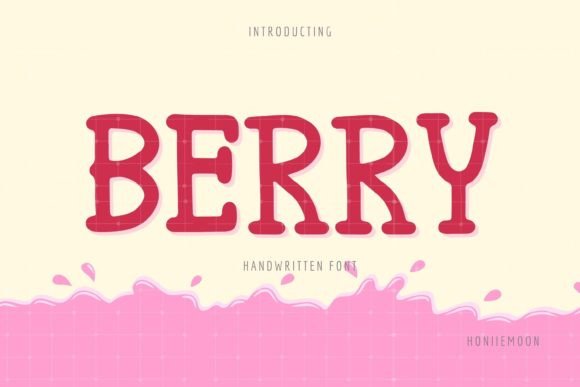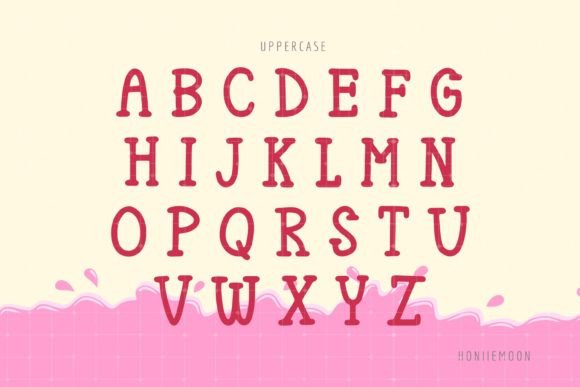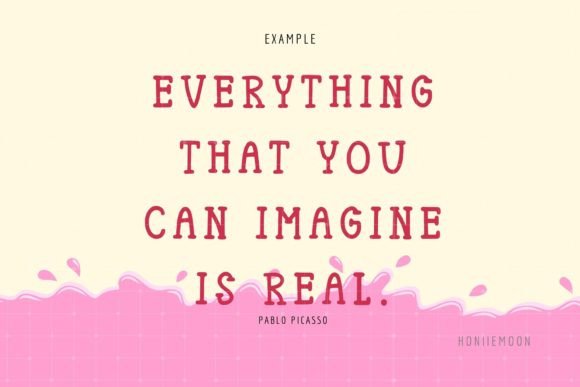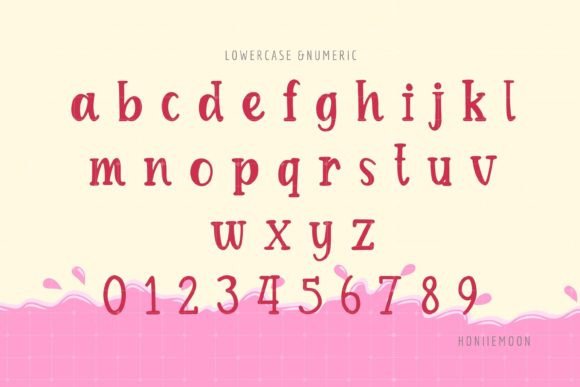
Berry Font
About Berry Font
“Berry” is a cool and fun handwritten font that brings a cute and jolly vibe to your designs. With its playful and friendly characteristics, this font is designed to enhance the visual appeal of each of your creative projects. Incorporate “Berry” into your designs, and you’ll notice how it infuses them with a lively and cheerful energy.
The cool and fun nature of “Berry” makes it well-suited for a variety of design applications. Whether you’re working on posters, invitations, social media graphics, or any other creative project, this font adds a touch of playfulness, elevating the overall charm of your designs.
The cute and jolly strokes of “Berry” contribute to its distinctive and inviting look. This font is not just a typographic choice; it’s a design element that brings a sense of joy and fun to your creative endeavors.
In summary, “Berry” is more than just a font; it’s a tool crafted to enhance the aspect of your designs and make them come alive with cuteness and jolliness. Let “Berry” be the font that adds a playful and fun touch to your creative projects, making them truly delightful and memorable.